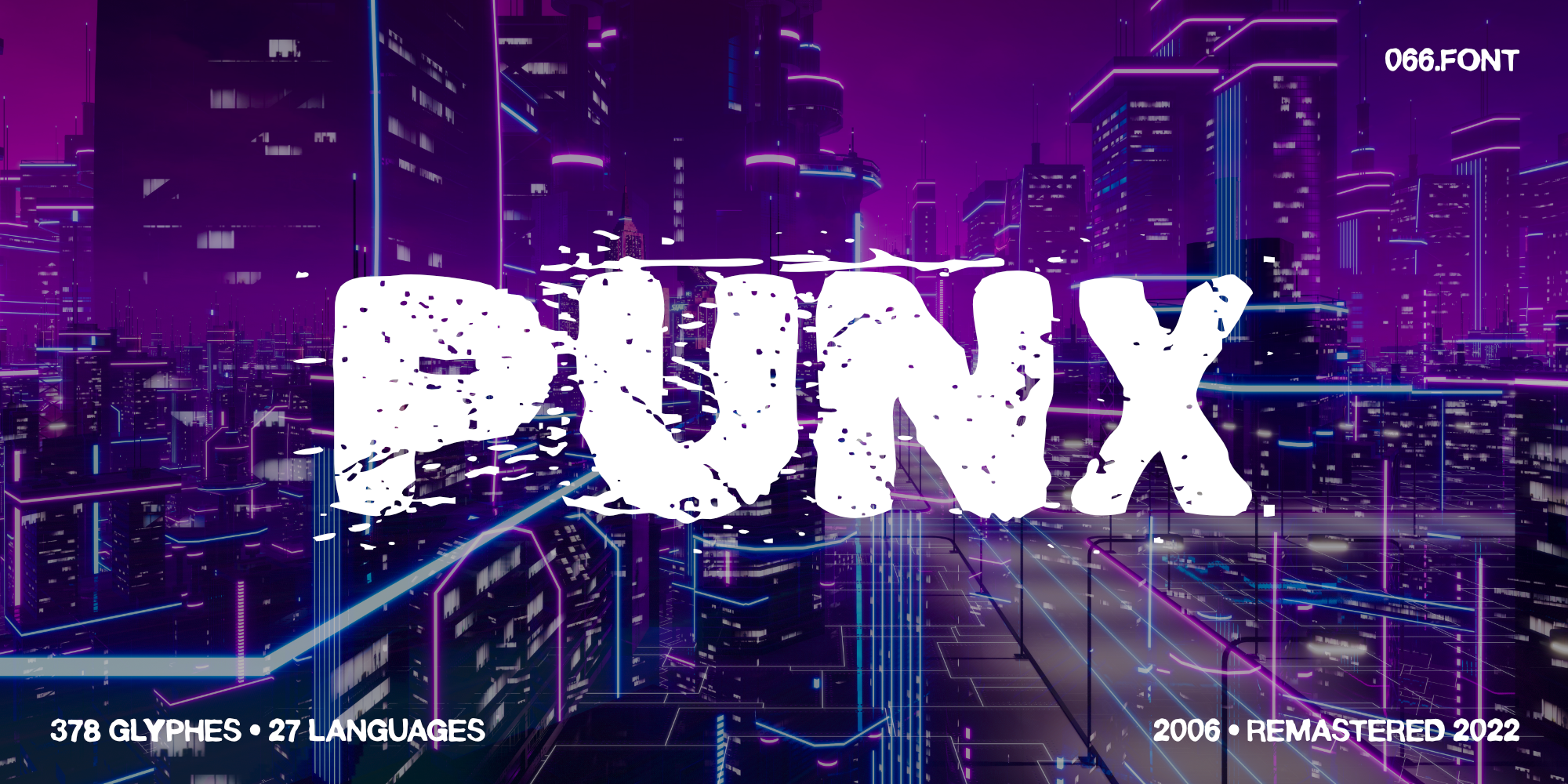
This rebellious typeface is perfect for punk rock band logos, underground music venue signage, alternative fashion brands, countercultural event promotions, indie record label communications, rebellious youth marketing, anarchist poster designs, and anti-establishment communications that require raw authenticity and punk sophistication with rebellious energy and underground credibility.
Punx Font is exciting because it powerfully captures the raw energy and uncompromising spirit of punk rock culture through its aggressively distressed letterforms that embody the DIY ethos and rebellious attitude that defined the punk movement. The font's distinctive character design and punk aesthetic reflect the world of underground music scenes and countercultural rebellion, making it perfect for alternative brands that want to convey authentic rebellion, anti-establishment credibility, and the kind of raw punk energy that appeals to audiences seeking genuine underground music experiences and authentic subcultural identity.
The Punx Font family includes rebellious variations and punk styling options, featuring regular, bold, distressed, and anarchist versions, along with underground design elements and countercultural alternates that provide punk bands and designers with comprehensive typographic tools for creating authentic punk branding and rebellious underground communications.
Revolt against ordinary typography with Punx Font Free Download, a typeface that brings authentic punk rock energy to contemporary alternative and underground branding projects. This exceptional font combines rebellious authenticity with subcultural functionality, making it an indispensable resource for punk musicians, alternative venues, and designers working on countercultural or underground music marketing campaigns. The rebelliously crafted letterforms ensure maximum punk impact while conveying the underground authenticity and rebellious sophistication that defines this distinctly punk and authentically countercultural-inspired typeface.